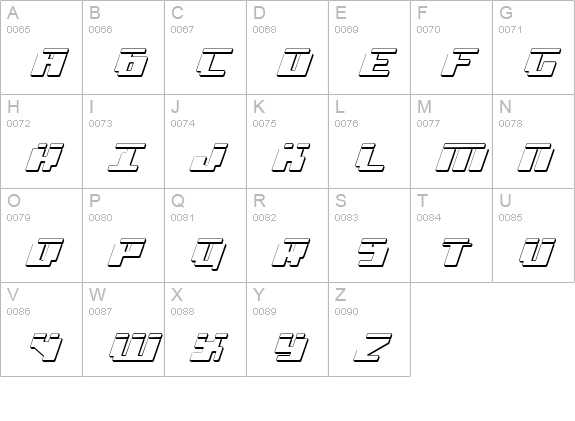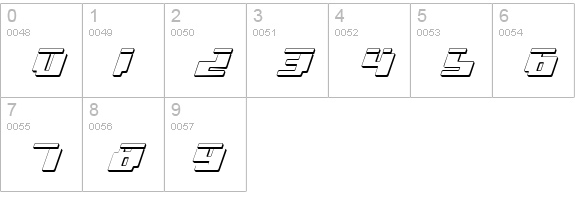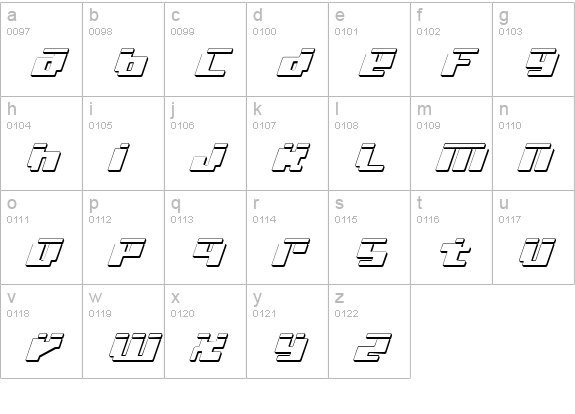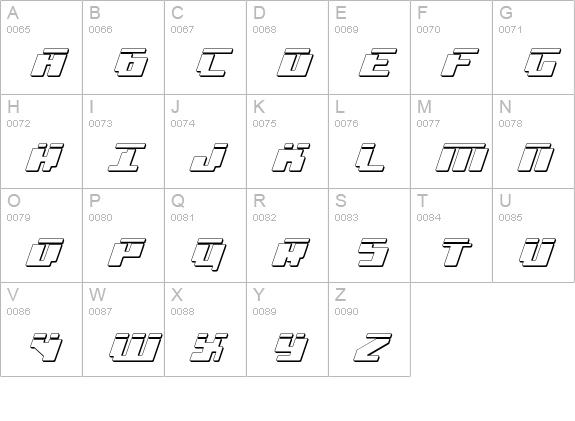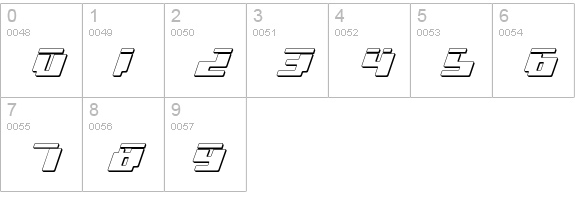
Introducing the captivating and futuristic Bad Robot Ital3dl font! This unique typeface combines sleek lines and robotic-inspired elements to create a modern and edgy look. Perfect for projects that require a touch of sci-fi or tech flair, this font will make your designs stand out from the crowd. Best of all, Bad Robot Ital3dl font is available for free download at FontsMarket.com! Embrace the power of this cutting-edge typeface and unleash your creativity without any cost. Transform your designs with this versatile and eye-catching font today.